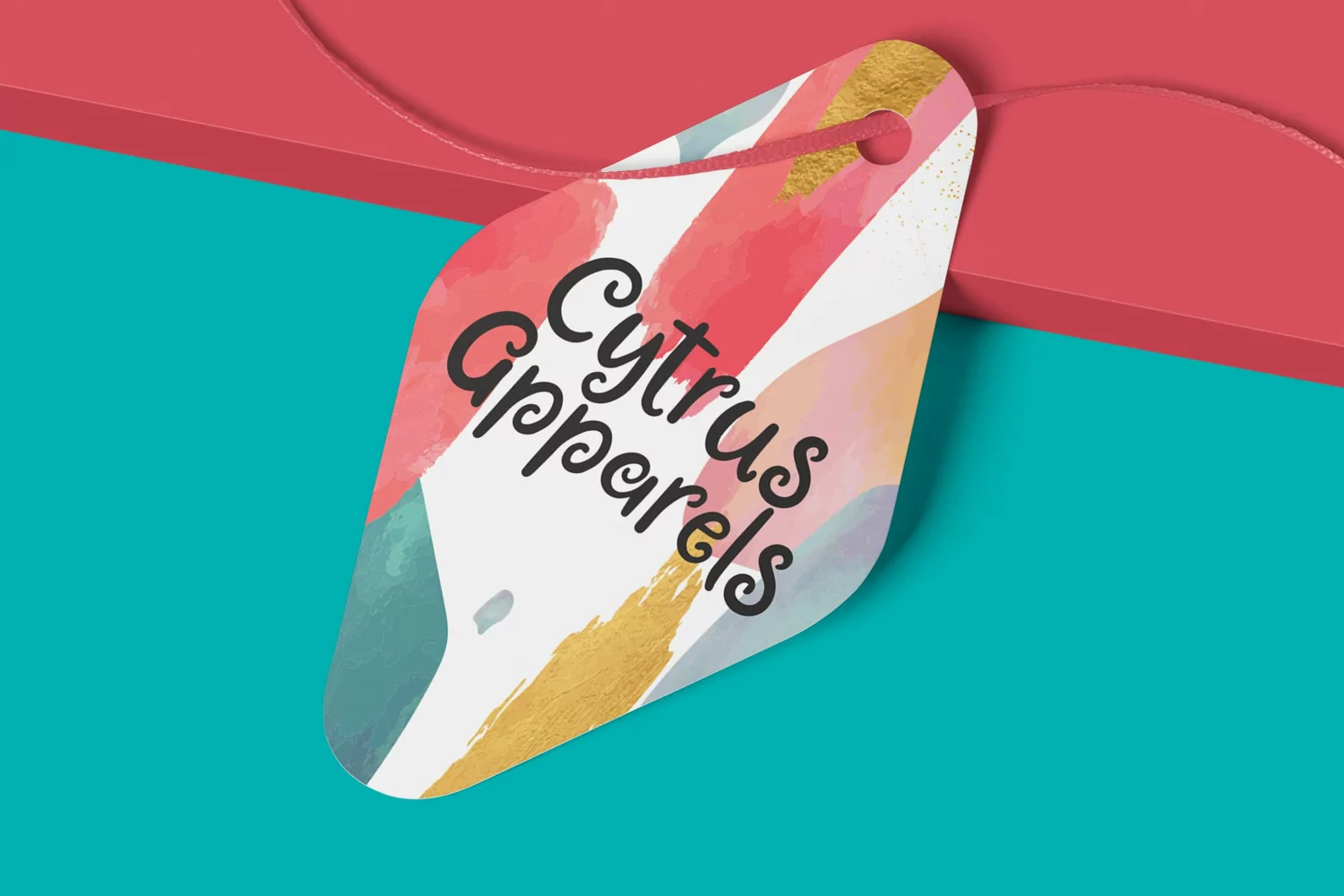
Jacky - Curly Handlettering Font that contain lowercase, uppercase, symbol, and also support multi language. There’s a lot ligatures in this font. This Font also comes with ligatures, alternates and many more. this font suitable for fashion, branding, catalog and other design what you want.
Jacky